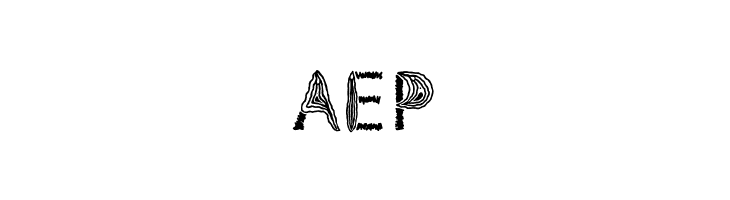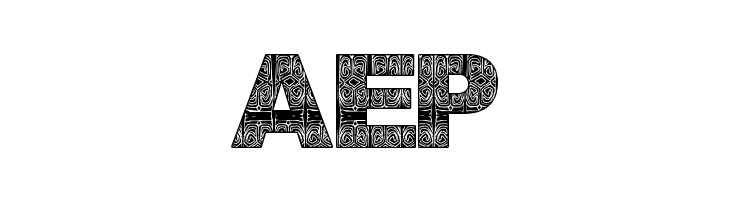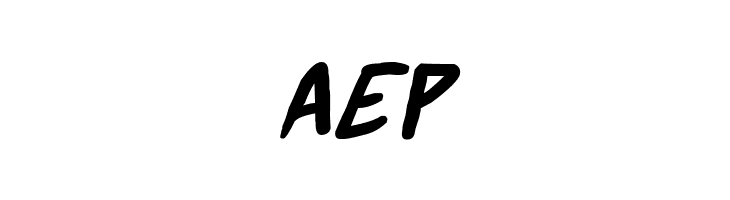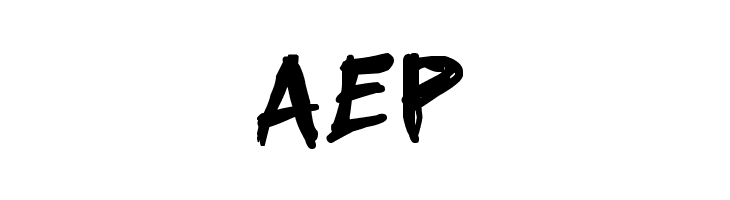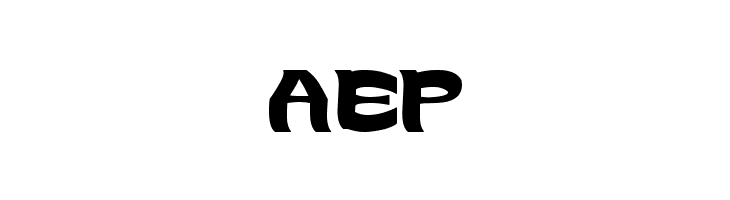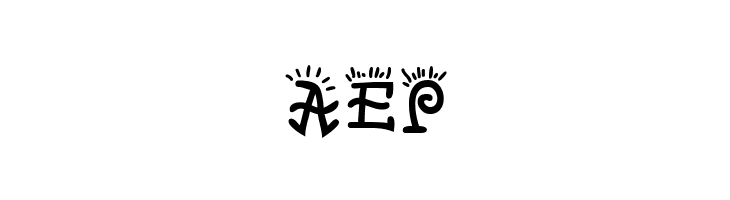
A bold, rounded font with a playful and modern style.
An artistic, hand-drawn font with intricate line work and medium contrast.
A playful, hand-drawn font with characters enclosed in hanging frames.
A cursive, elegant font with interconnected letters and a handwritten style.
A bold, distressed font with an industrial, stamped look.
A bold, distressed stencil-style font with a vintage, industrial feel.
A textured, stone-like font with a bold, geometric style.
A bold, woodcut-style font with a rustic, handcrafted appearance.
A bold, playful font with a unique striped pattern, ideal for eye-catching designs.
A bold, geometric sans-serif font with strong, uniform strokes.
A bold, playful font with curved, cartoonish characters.
A bold, 3D decorative font with a playful and dynamic style.
A playful, hand-drawn style font with bold, rounded characters.
A bold, hand-drawn font with a comic book style and dynamic character.
A bold, italicized handwritten font with a playful and dynamic style.
A decorative font with characters encased in diamond-topped rings, perfect for elegant occasions.